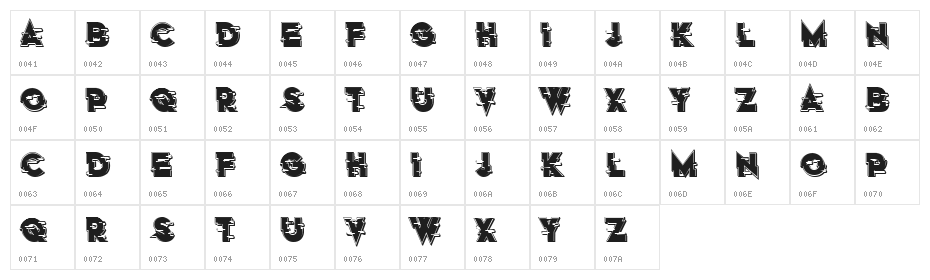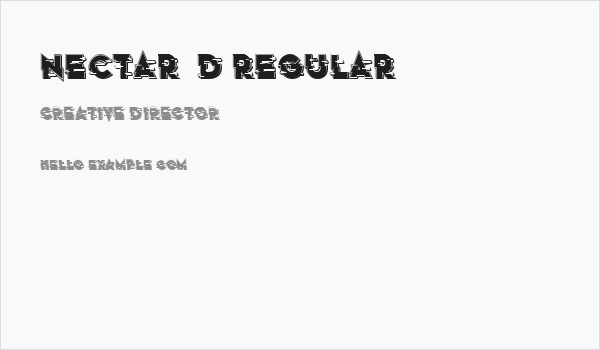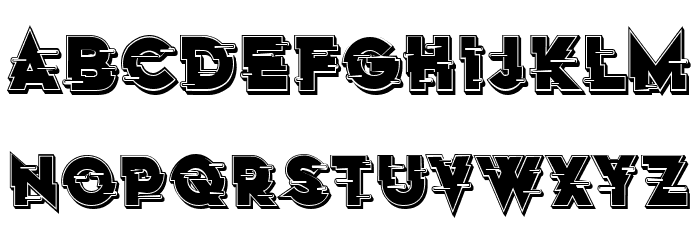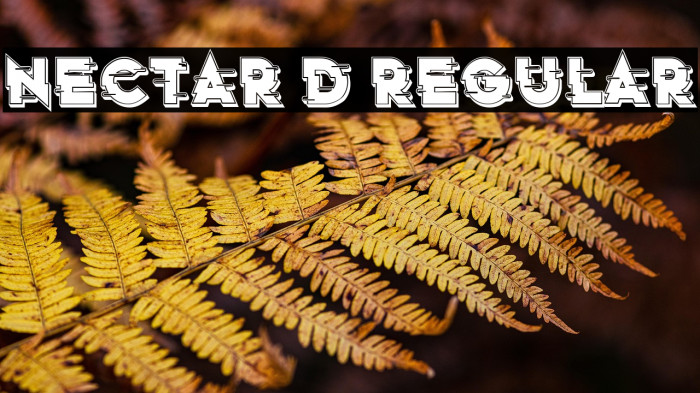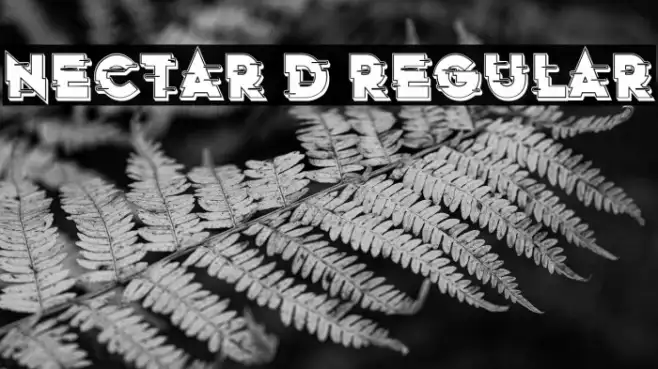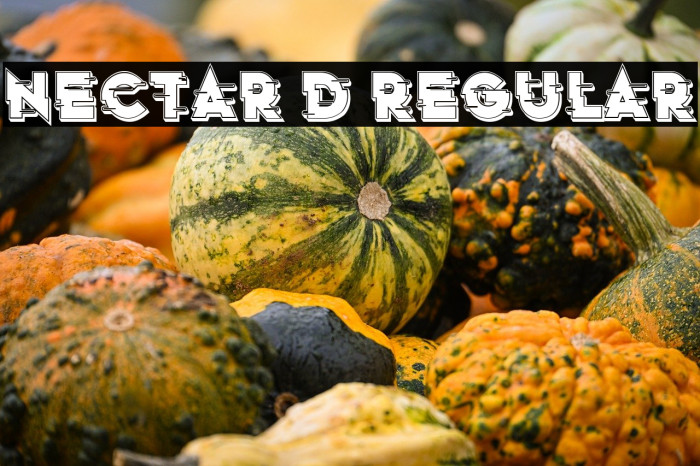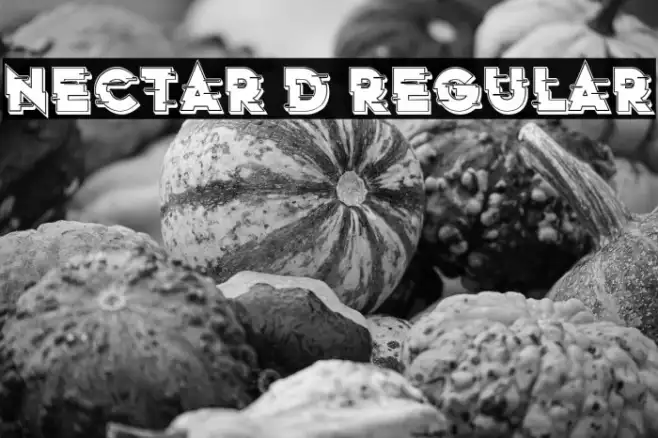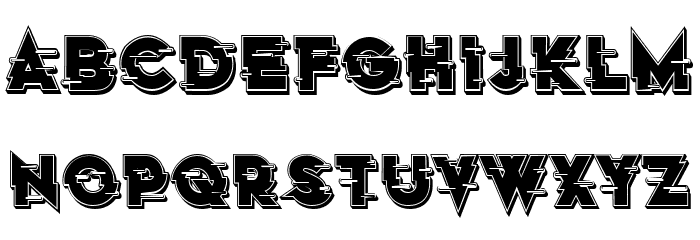
Nectar 3D Regular Font
Nectar 3D Regular Description
This font features a bold, three-dimensional design with a strong geometric influence. Each character is outlined with a thick black border, creating a striking contrast against the white interior. The letters have a blocky, angular appearance, with sharp edges and a sense of depth that gives them a dynamic, impactful look. The style is reminiscent of retro or vintage signage, making it ideal for projects that require a bold statement. The font's unique 3D effect is achieved through the use of shadowing and layering, adding to its visual appeal.
| Proposed Projects | Ideal for posters, logos, headlines, and any design needing a bold, eye-catching typeface. |